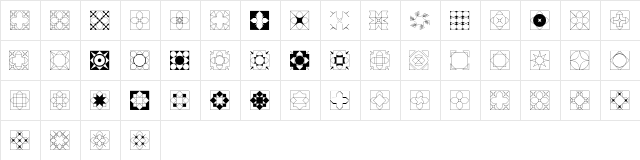
Formas geometricas 2 Regular
Design Context for Formas geometricas 2 Typeface
Formas geometricas 2 is a composed and adaptable typeface that performs quietly and consistently across a wide range of design contexts.